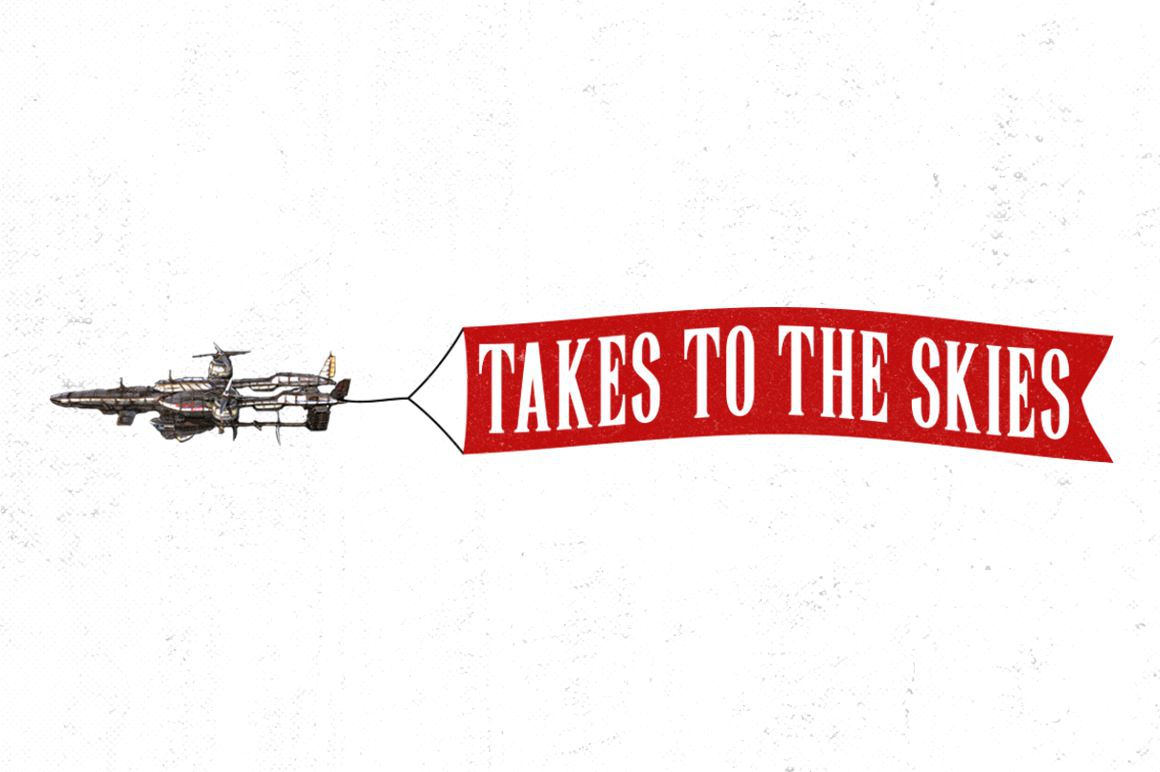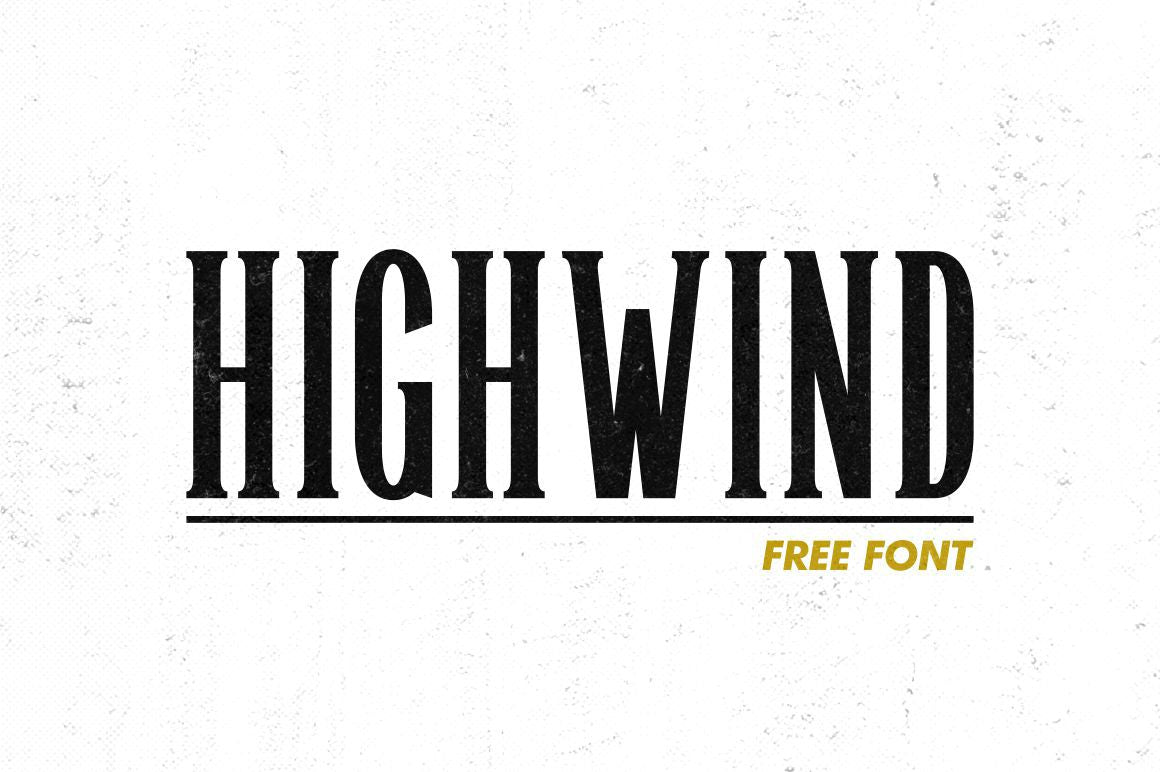
Free Highwind Serif Font
Take a look at this miraculous free highwind serif font. Fahrizal Tawakkal has created this amazing and beautiful free typeface. This is absolutely fancy font so you can easily make world-class designs.